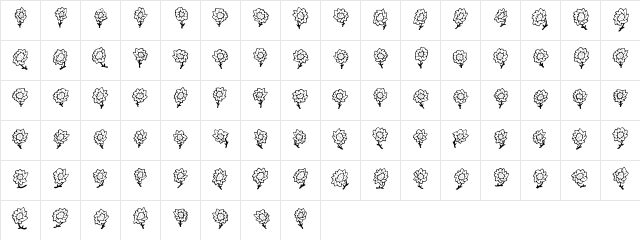
FE Majas Flowers Regular
| Designer | Samuel Marcius |
Design Context for FE Majas Flowers Typeface
FE Majas Flowers is a composed and adaptable typeface that performs quietly and consistently across a wide range of design contexts.